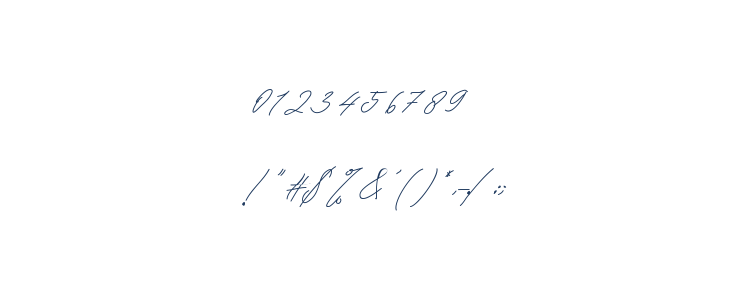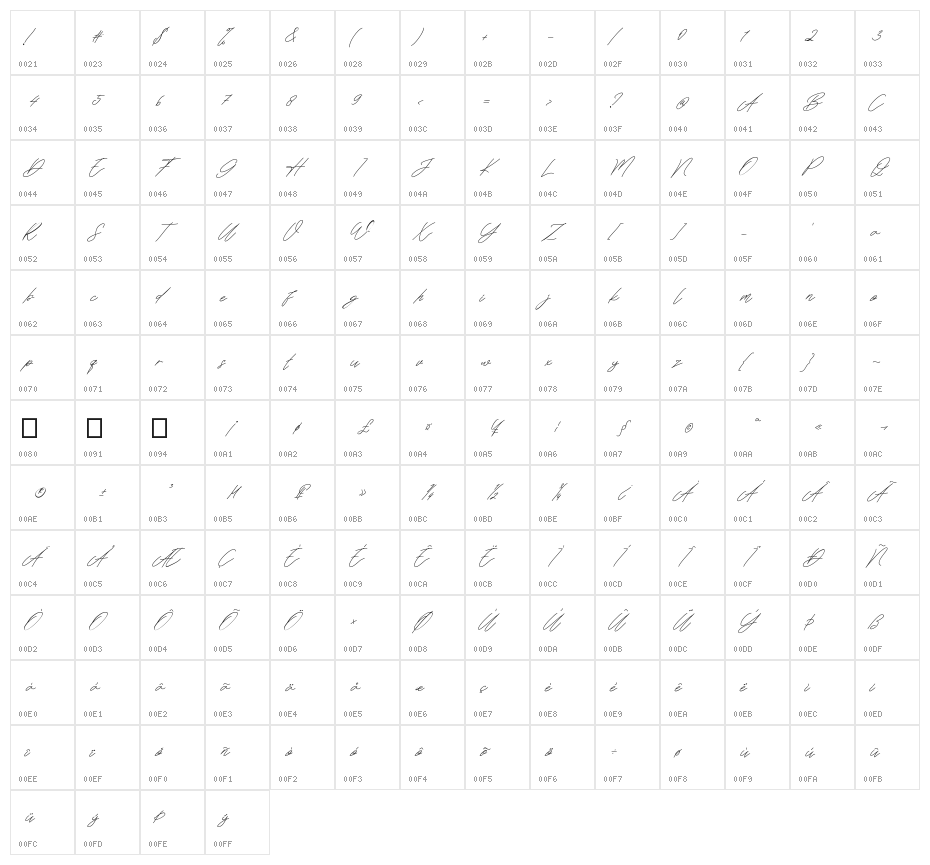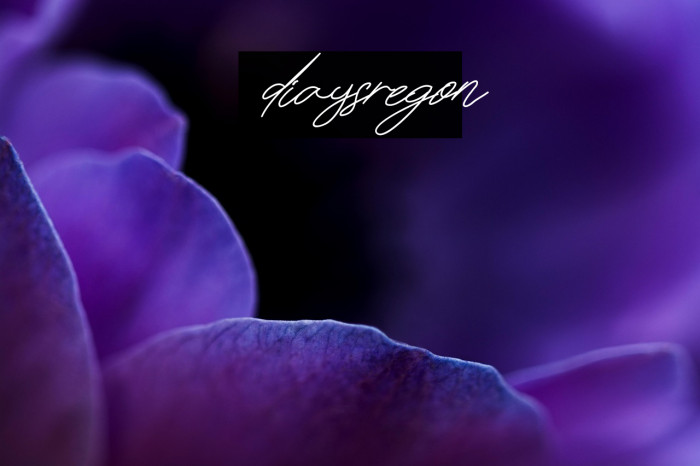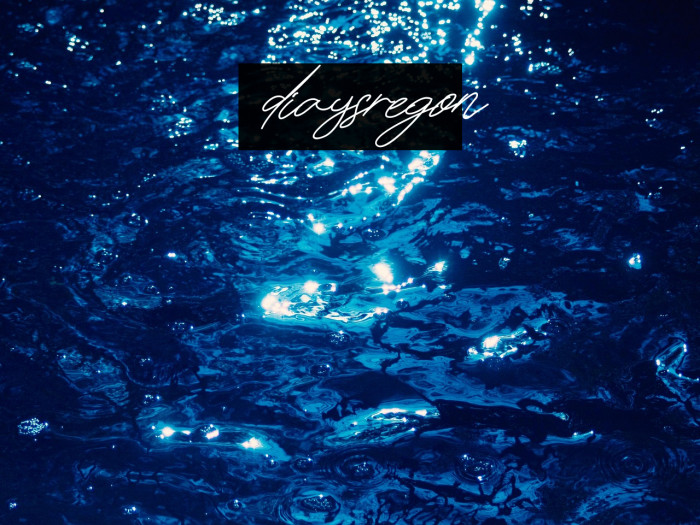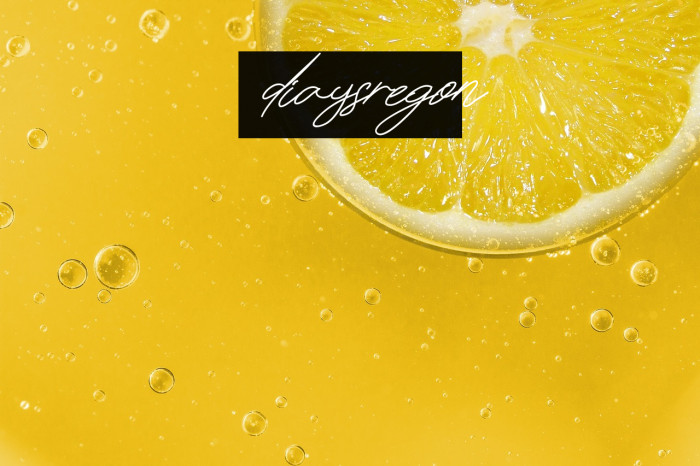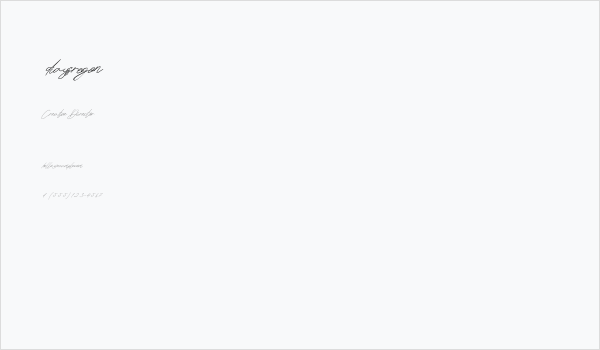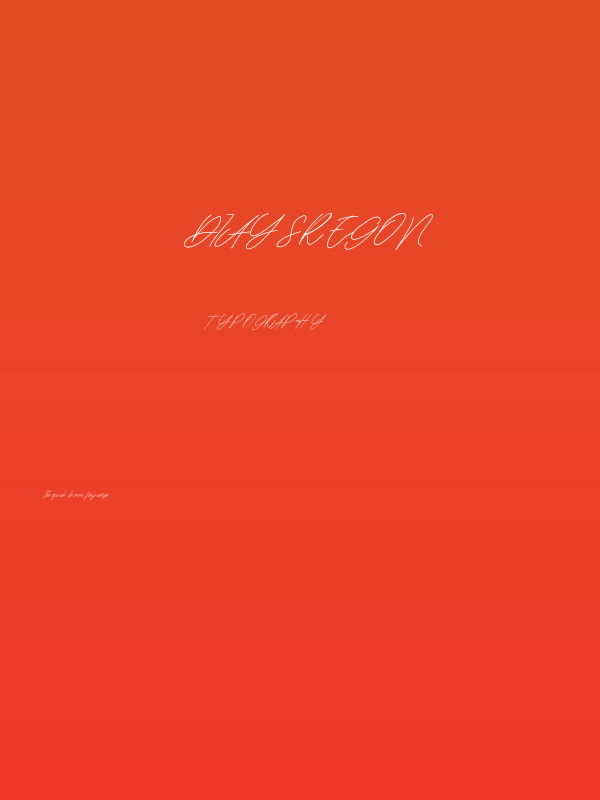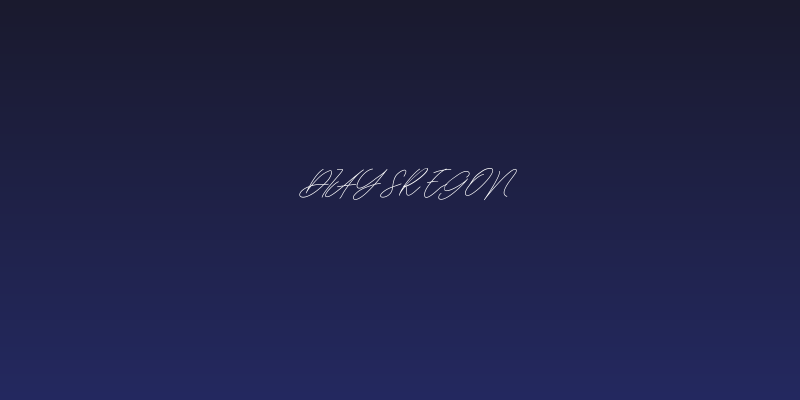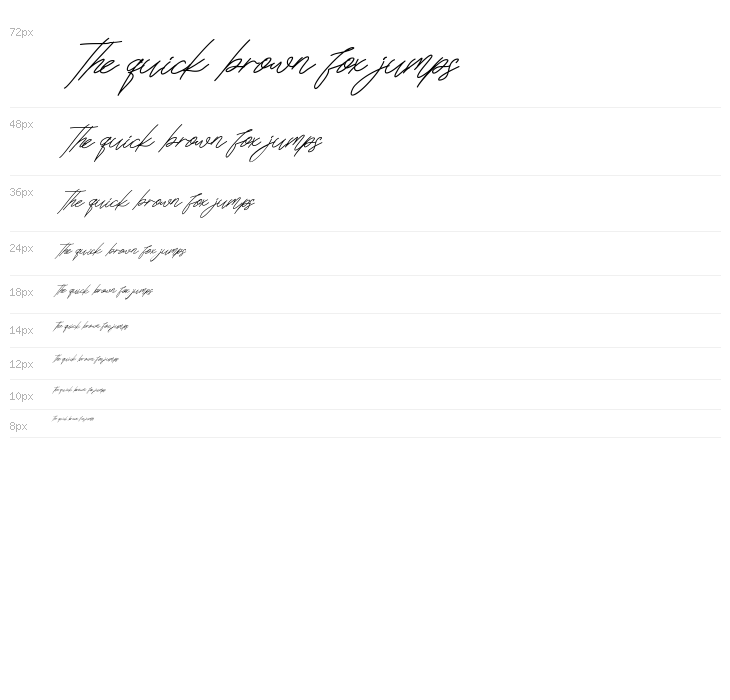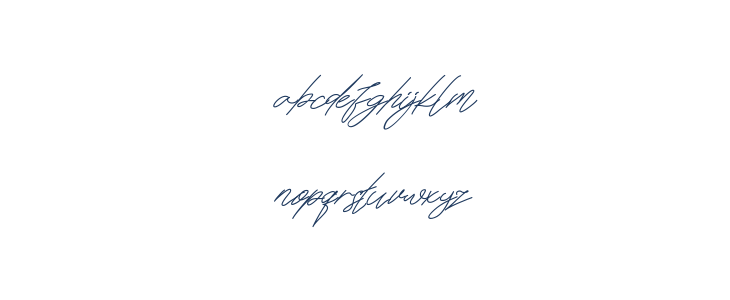
diaysregon Font
diaysregon Description
This font exhibits a flowing, cursive style with elegant, elongated strokes that give it a sophisticated and artistic appearance. The letters are interconnected, creating a seamless and fluid look that is both graceful and dynamic. The uppercase characters are particularly striking, with sweeping curves and loops that enhance the font's decorative quality. The lowercase letters maintain a consistent style, complementing the uppercase with their own subtle flourishes. Numbers and special characters are designed with the same attention to detail, ensuring a cohesive overall aesthetic. This font is ideal for projects that require a touch of elegance and personality.